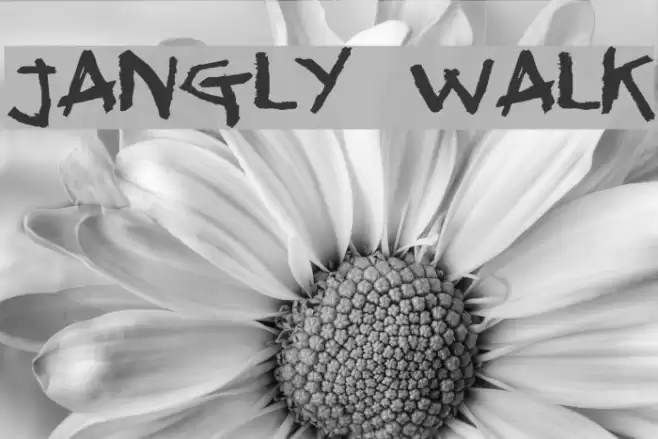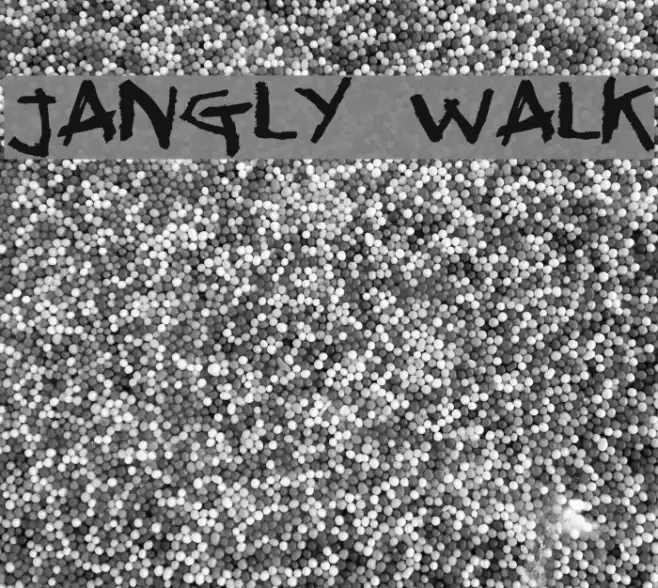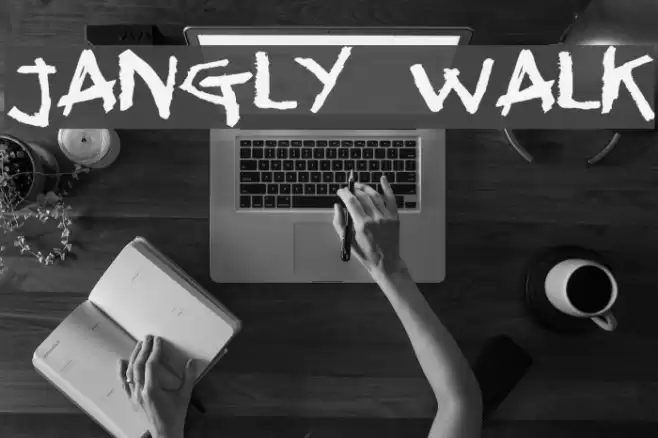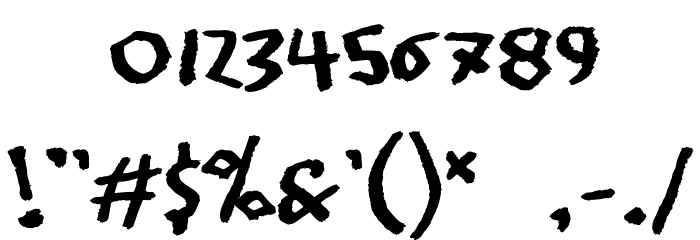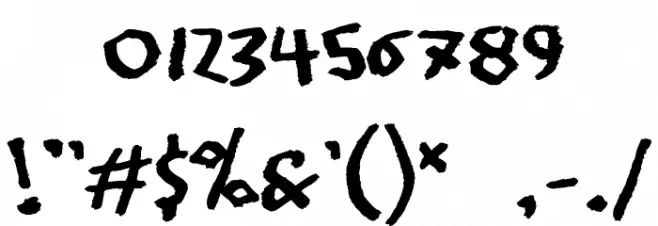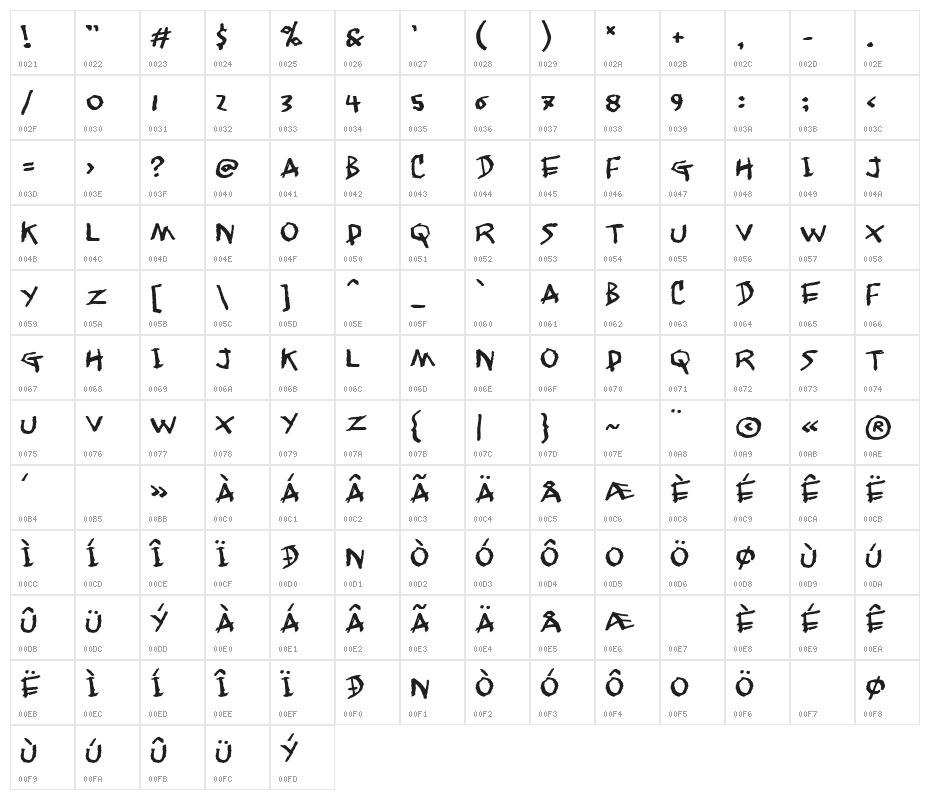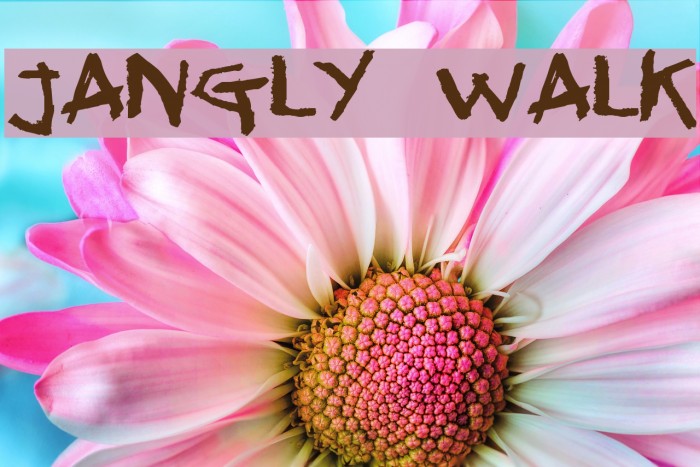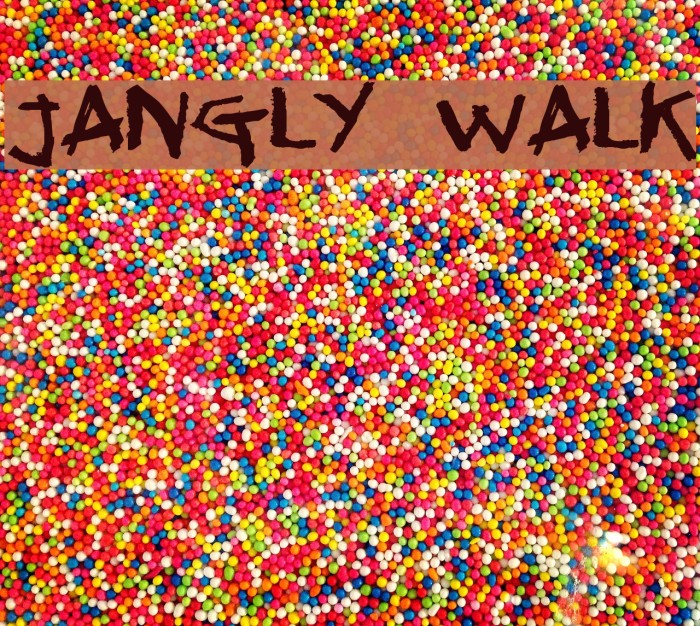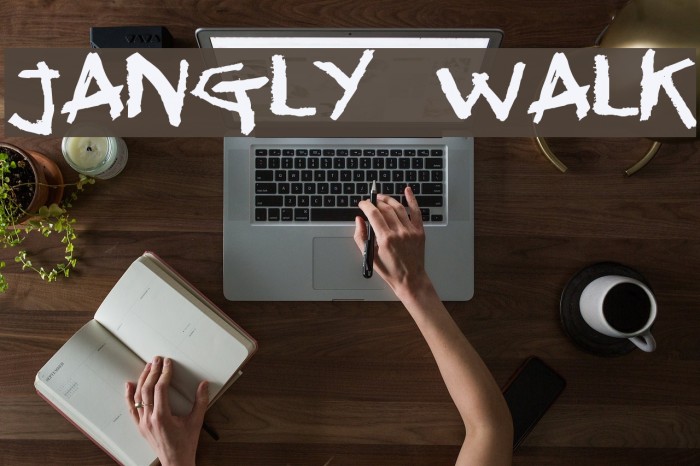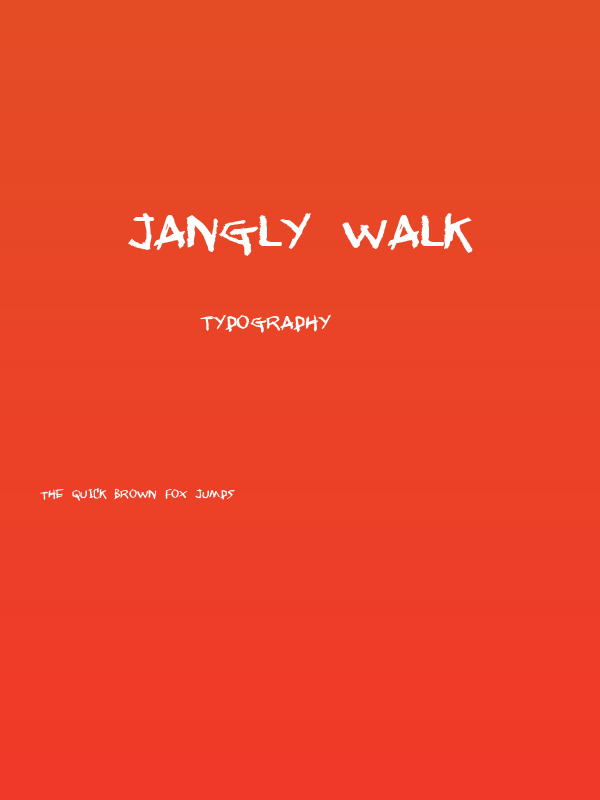
Jangly walk Font
Jangly walk Description
This font features a bold and expressive handwritten style, characterized by its jagged, uneven strokes that convey a sense of energy and spontaneity. The letters have a rough, textured appearance, giving them a dynamic and edgy feel. The uppercase and lowercase letters maintain a consistent style, with each character exhibiting unique quirks and variations that enhance the font's handcrafted look. The numerals and special characters follow the same aesthetic, ensuring a cohesive appearance across all text. This font's distinctive style makes it ideal for projects that require a bold, artistic touch.
A bold, expressive handwritten font with jagged, textured strokes from Script fonts.
- Proposed Projects: Ideal for album covers, posters, graffiti art, and creative branding projects.
- Use Case: Logos, Headlines, Artistic projects